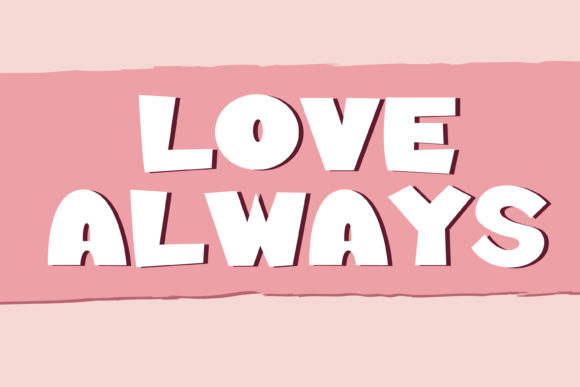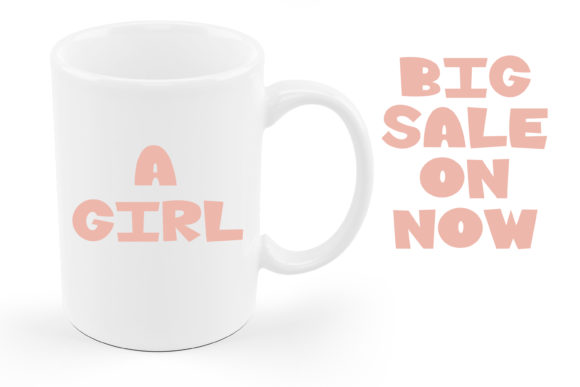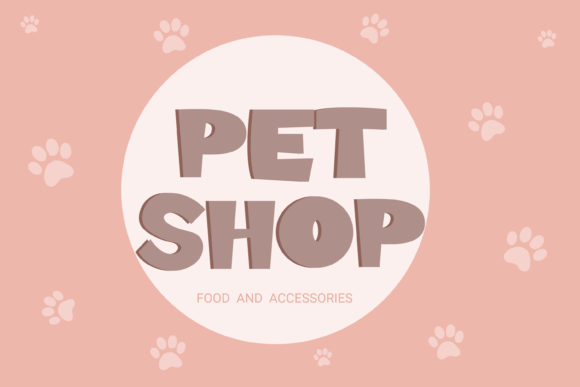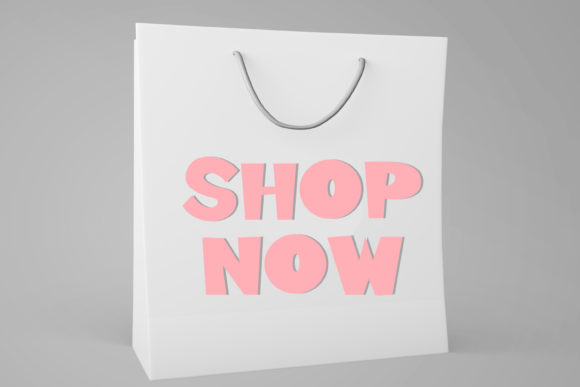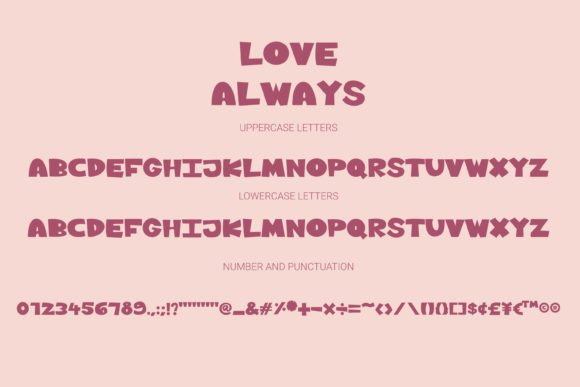
Love Always Font
About Love Always Font
Love Always looks bold, yet sophisticated and features chunky and extended characters that will look particularly adept when used in logos, branding, packaging design, and much more.